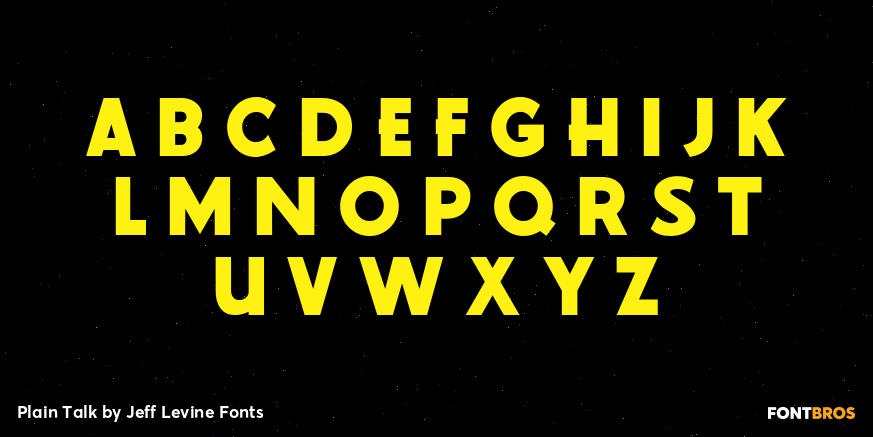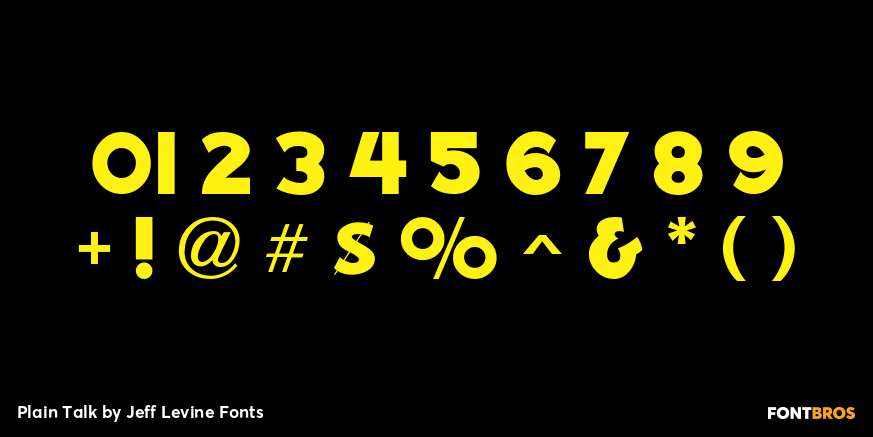
Plain Talk
Plain Talk JNL is similar to Eckhardt Centerline JNL, but lacks the thin inline lettering and has a different A and G. The hand-lettered look of this font makes it perfect for titling applications.